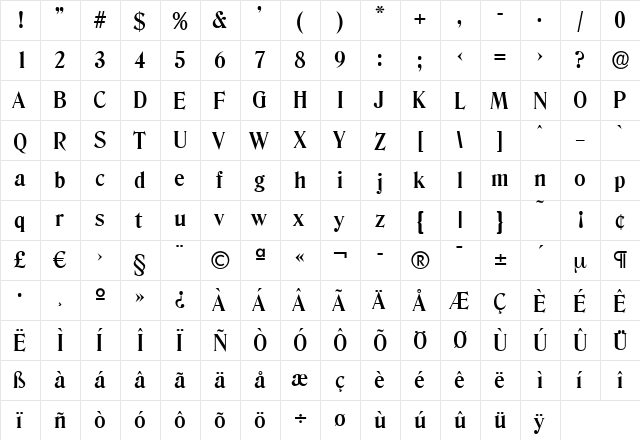
ThomasBecker Bold
Design Context for ThomasBecker Typeface
ThomasBecker is a composed and adaptable typeface that performs quietly and consistently across a wide range of design contexts. The heavy weight commands attention and anchors typographic hierarchies.